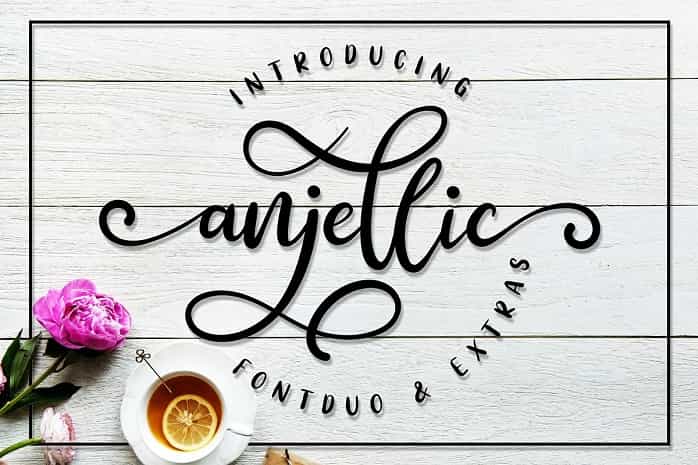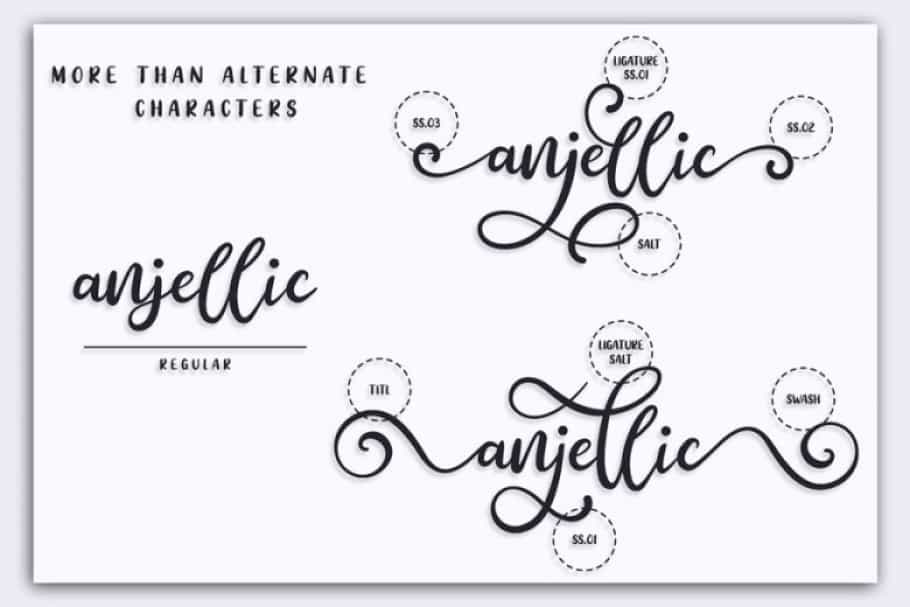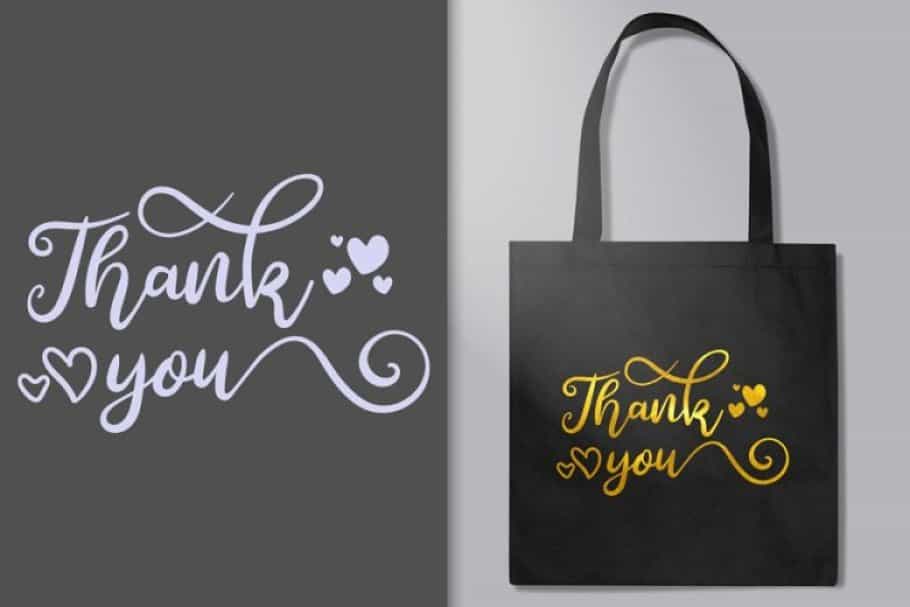
Anjellic Font! Share the perfect combination of script and sans-serif font, write with your hands. With a harmonious typographic system is feasible with Anjellic, which Enables it to be simple to work with your projects, logo, branding, wedding Posters and Prints, social media posts, advertisements, product patterns, and much more.